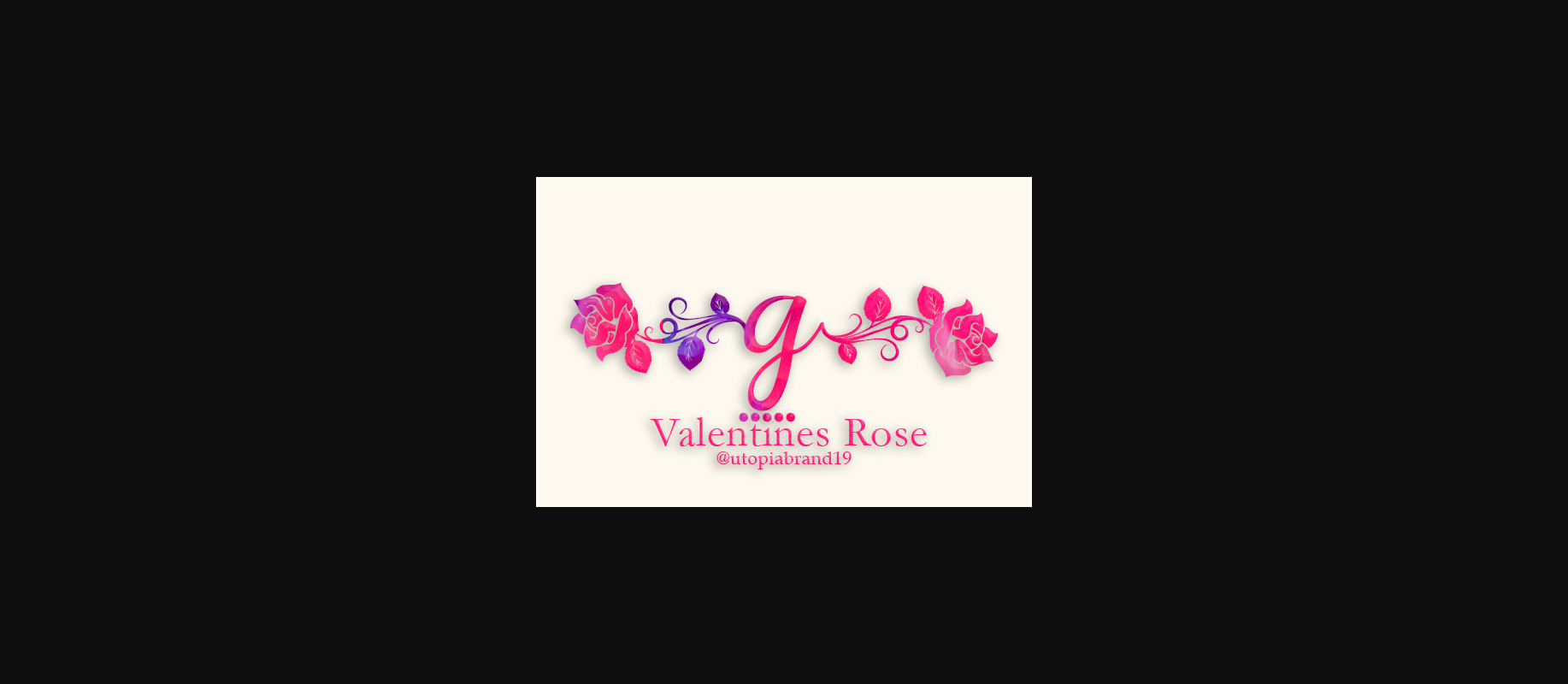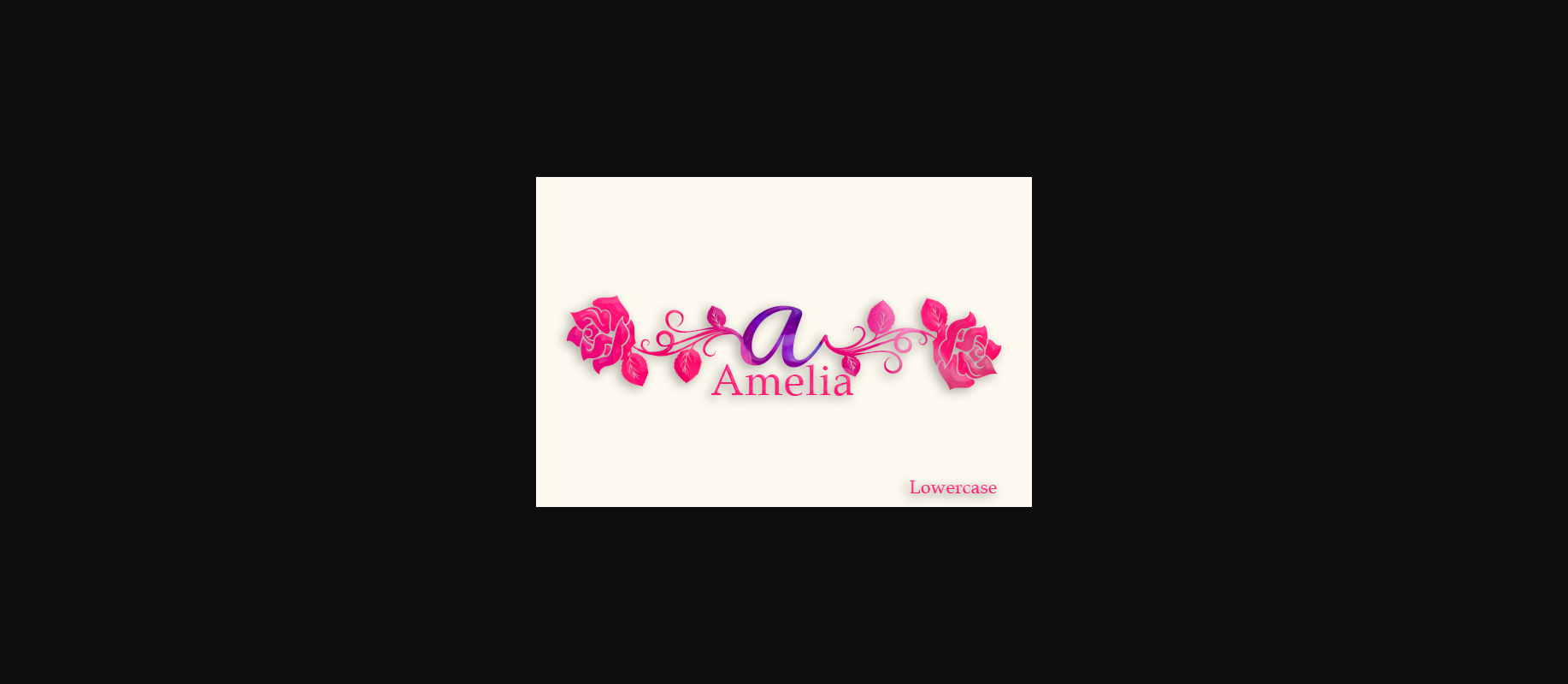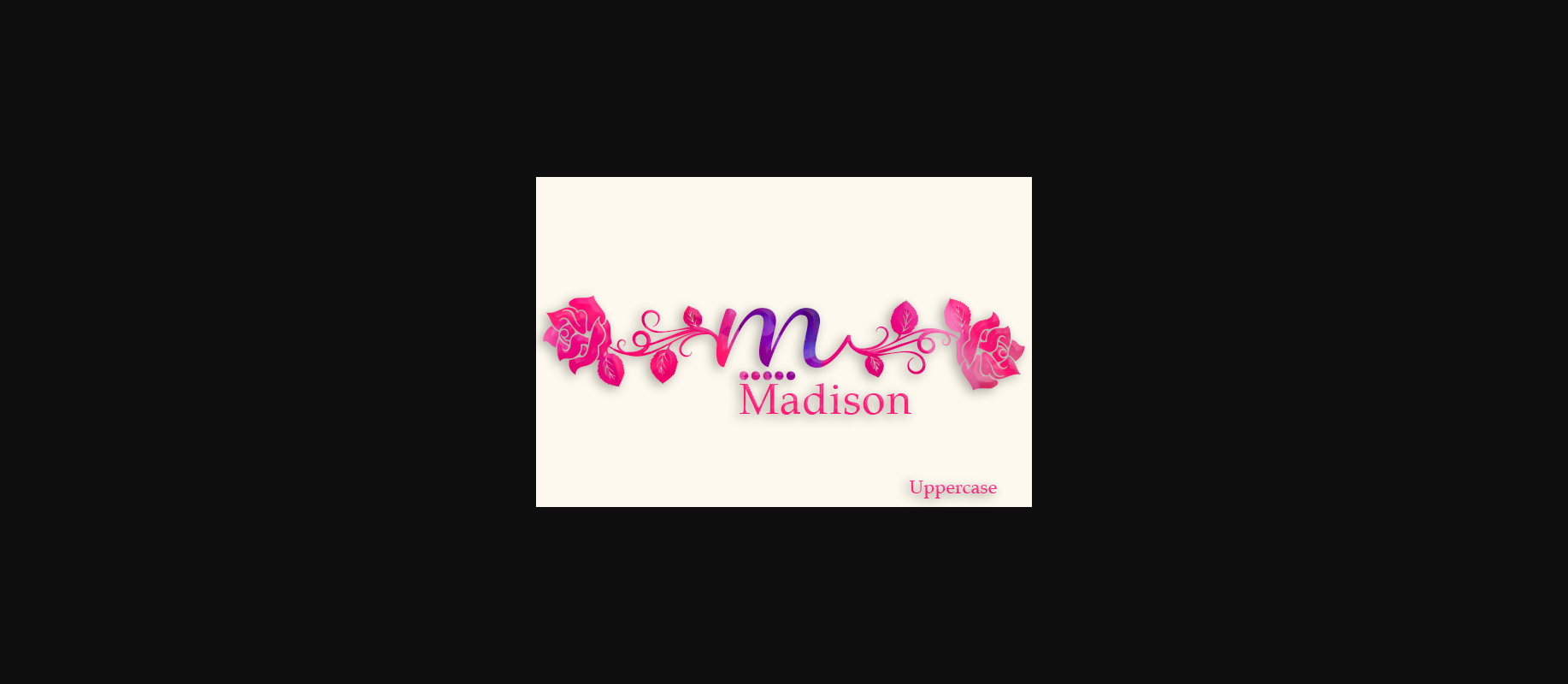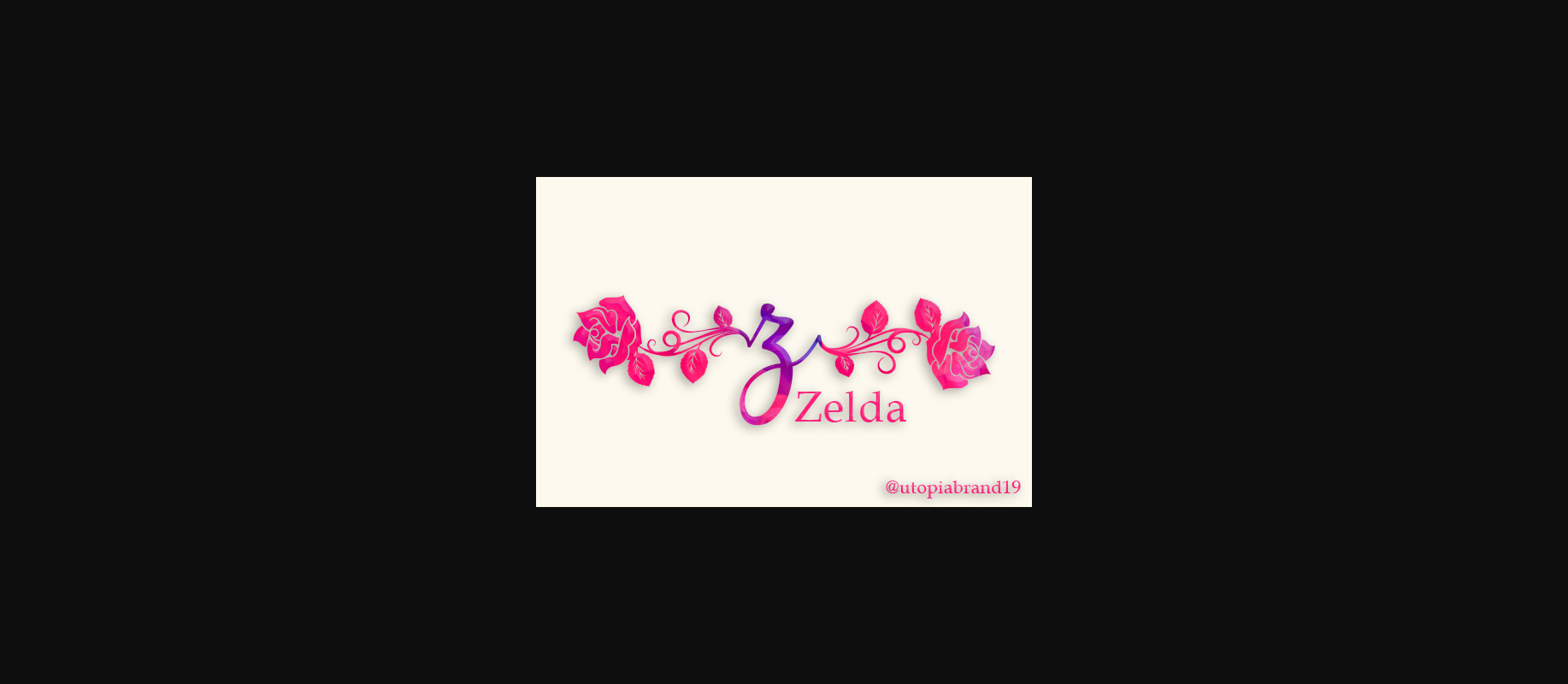
About Valentines Rose Monogram Font
Valentine’s Rose Monogram is an elegant decorative font, featuring lovely ornaments. Fall in love with its authentic feel and use it to create gorgeous wedding invitations, beautiful stationary art, eye-catching social media posts, and cute greeting cards.